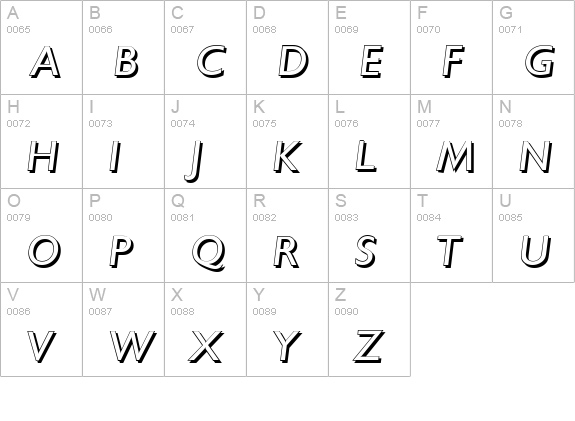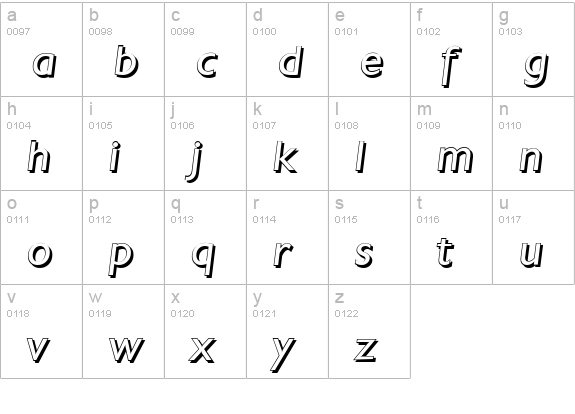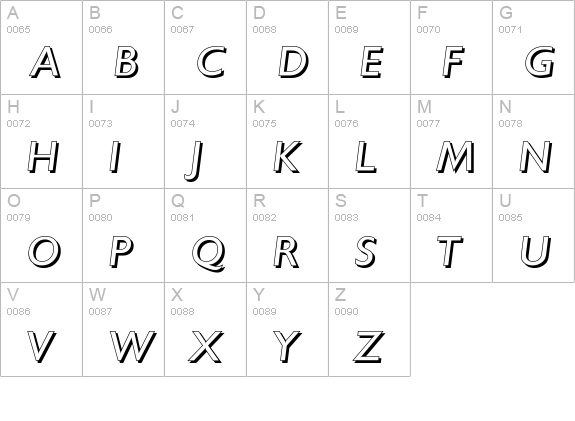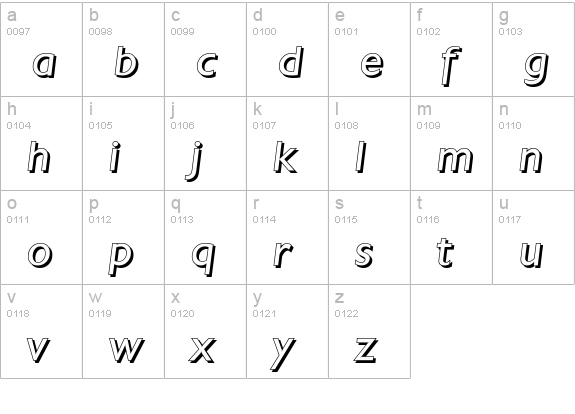
ChantillyShadow-Italic Font Details
ChantillyShadow-Italic is a distinctive, italic variant in the ChantillyShadow typeface family \xE2\x80\x94 well suited to design and typography projects.
ChantillyShadow-Italic font is a beautifully crafted typeface that exudes elegance and sophistication. With its delicate slanted design, this font adds a touch of whimsy and flair to any project. Perfect for adding a touch of creativity to invitations, branding, or any design project that requires a unique and stylish look. The flowing curves and intricate details of ChantillyShadow-Italic font make it a standout choice for those looking to make a statement with their typography. Whether you're designing a wedding invitation or a logo for a luxury brand, this font is sure to impress. Best of all, ChantillyShadow-Italic font is completely free to download at FontsMarket.com. So you can add this stunning typeface to your collection without having to spend a dime. Don't miss out on the opportunity to enhance your designs with the beauty and sophistication of ChantillyShadow-Italic font. Download it today and let your creativity shine.